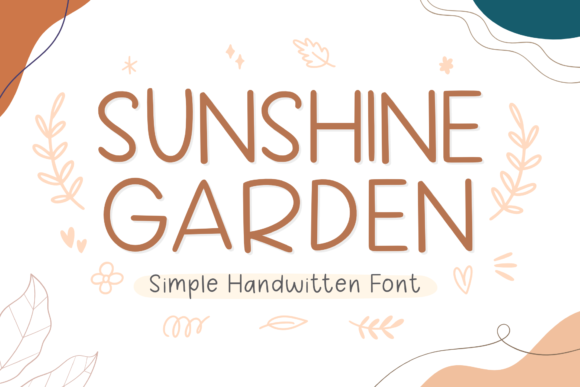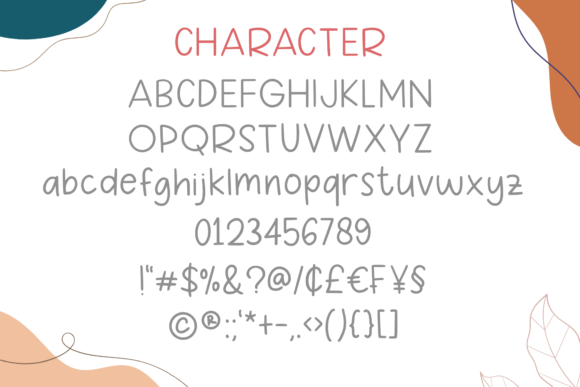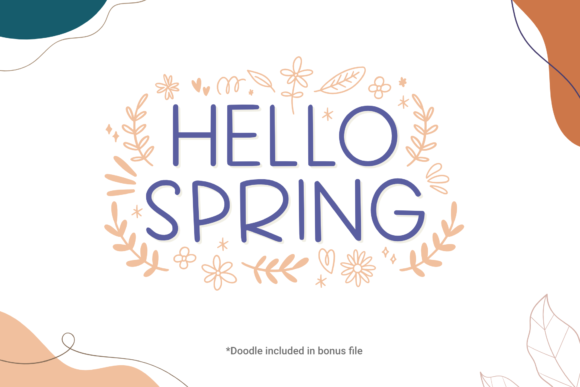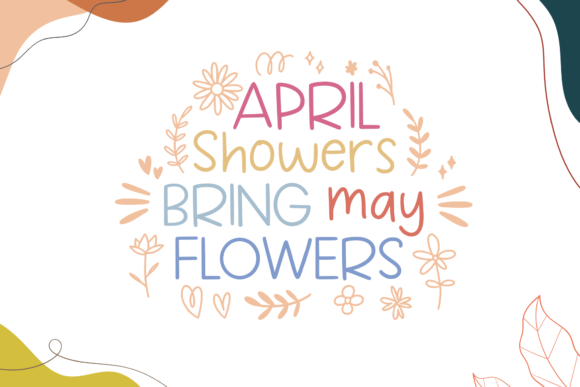
About Sunshine Garden Font
Sunshine Garden is a cool and friendly handwritten font. It can easily be matched to an incredibly large set of projects, so add it to your creative ideas and notice how it makes them stand out!